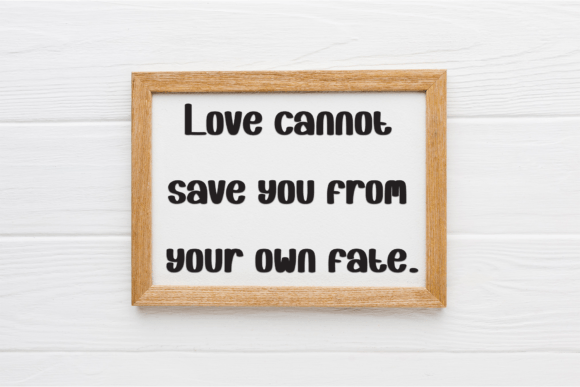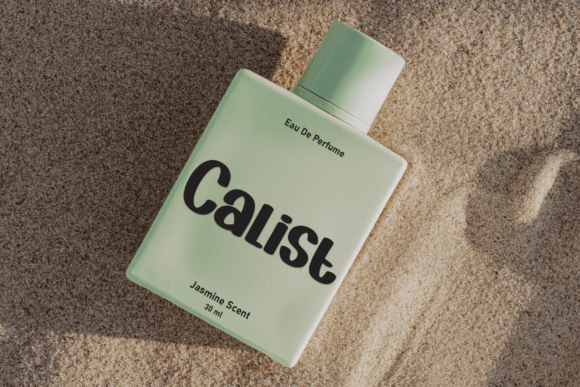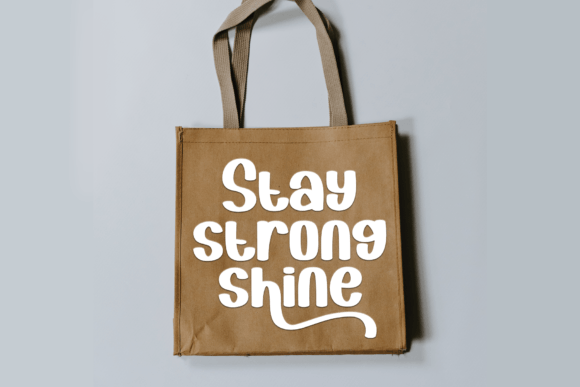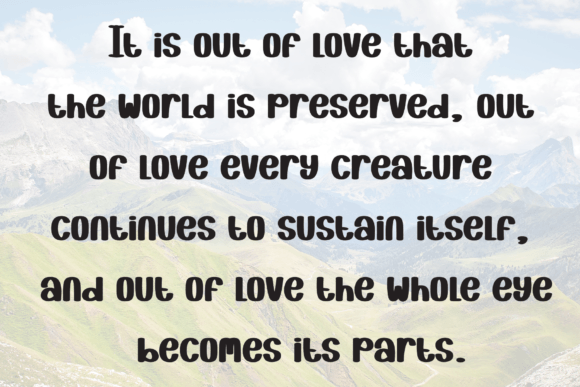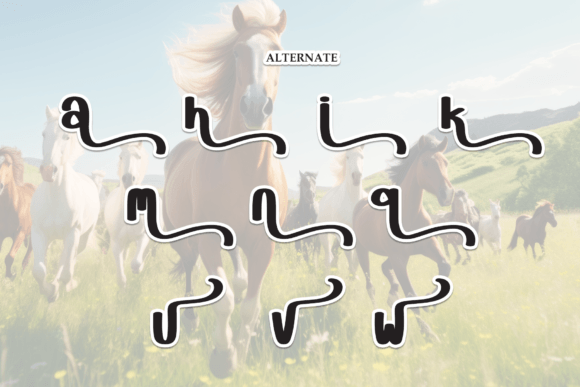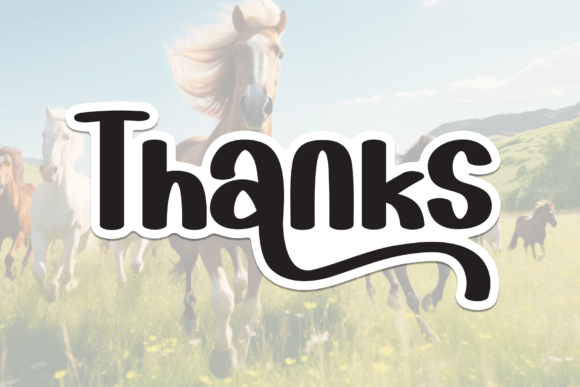
Introducing Equine Font: Add a Touch of Whimsy to Your Designs
Are you looking for a font that can add a dash of fun and playfulness to your designs? Look no further than Equine Font! This sweet and friendly handwritten display font is perfect for creating eye-catching wedding invitations, cards, and other designs that require a touch of whimsy. In this article, we’ll take a closer look at Equine Font, its features, and how you can use it to elevate your designs.
What is Equine Font?
Equine Font is a beautiful, handwritten display font that exudes a sense of friendliness and approachability. Its cute and fun design makes it an ideal choice for designers and crafters who want to add a personal touch to their work. Whether you’re creating wedding invitations, greeting cards, or social media graphics, Equine Font is sure to make your designs stand out.
Key Features of Equine Font
So, what makes Equine Font so special? Here are some of its key features:
- Handwritten design: Equine Font has a beautiful, handwritten design that gives it a personal and friendly feel.
- Cute and fun: This font is perfect for designers and crafters who want to add a touch of whimsy to their work.
- Display font: Equine Font is a display font, making it perfect for headlines, titles, and other design elements that require a bold and eye-catching font.
- Easy to read: Despite its playful design, Equine Font is easy to read, making it perfect for body text and other design elements that require clear communication.
Use Cases for Equine Font
So, how can you use Equine Font in your designs? Here are some use cases to get you started:
- Wedding invitations: Equine Font is perfect for creating beautiful and unique wedding invitations that set the tone for the big day.
- Greeting cards: Whether you’re creating birthday cards, thank-you cards, or holiday cards, Equine Font is sure to add a touch of personality to your designs.
- Social media graphics: Equine Font is perfect for creating eye-catching social media graphics that require a bold and playful font.
- Branding and packaging: If you’re looking for a font that can add a touch of whimsy to your branding and packaging, Equine Font is a great choice.
Tips for Using Equine Font
Here are some tips for using Equine Font in your designs:
- Use it sparingly: Equine Font is a bold and eye-catching font, so use it sparingly to avoid overwhelming your designs.
- Pair it with other fonts: Equine Font pairs well with other fonts, so don’t be afraid to experiment with different font combinations.
- Experiment with colors: Equine Font looks great in a variety of colors, so experiment with different color schemes to find the one that works best for your design.
In conclusion, Equine Font is a beautiful and versatile font that can add a touch of whimsy to your designs. Its cute and fun design makes it perfect for wedding invitations, greeting cards, social media graphics, and other designs that require a playful font. With its ease of use and flexibility, Equine Font is a great choice for designers and crafters of all levels. So why not give it a try and see how it can elevate your designs?
- What type of font is Equine Font?: Equine Font is a handwritten display font.